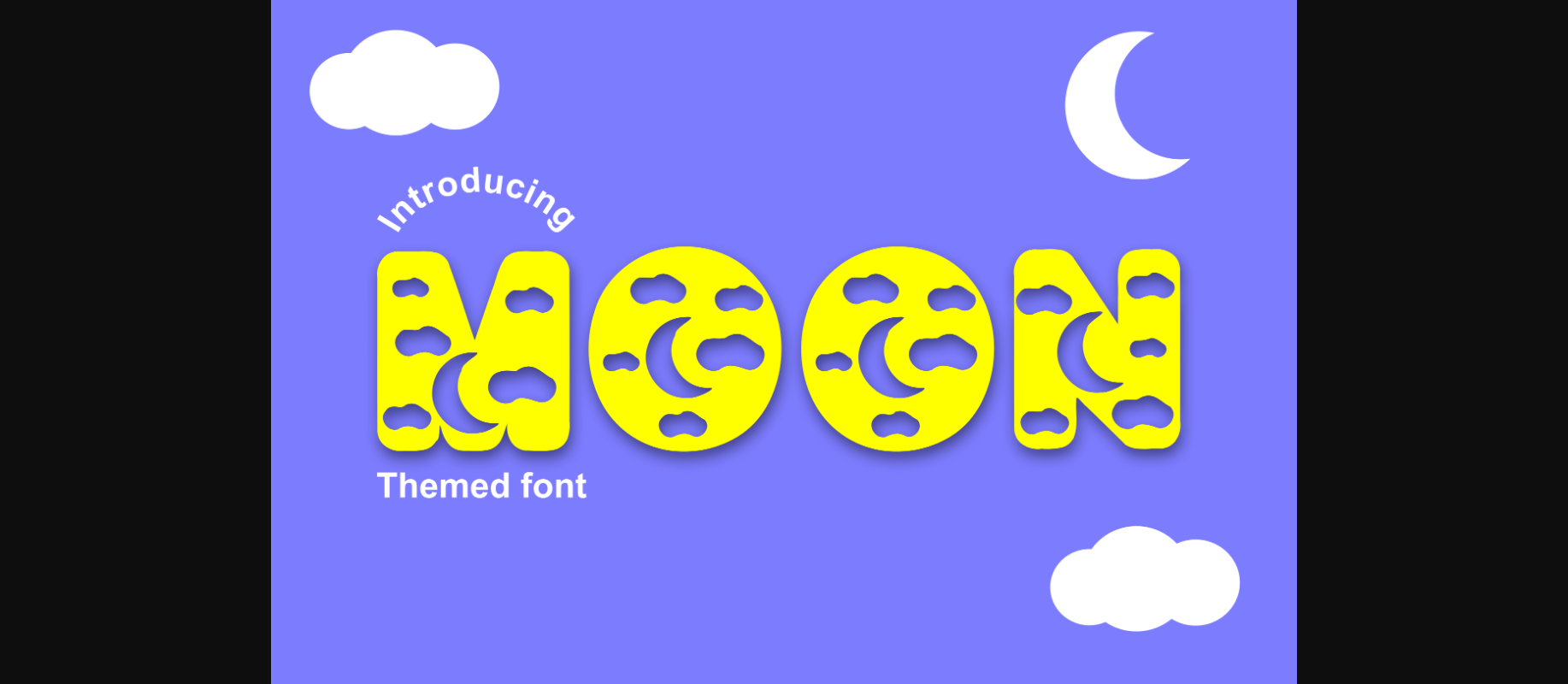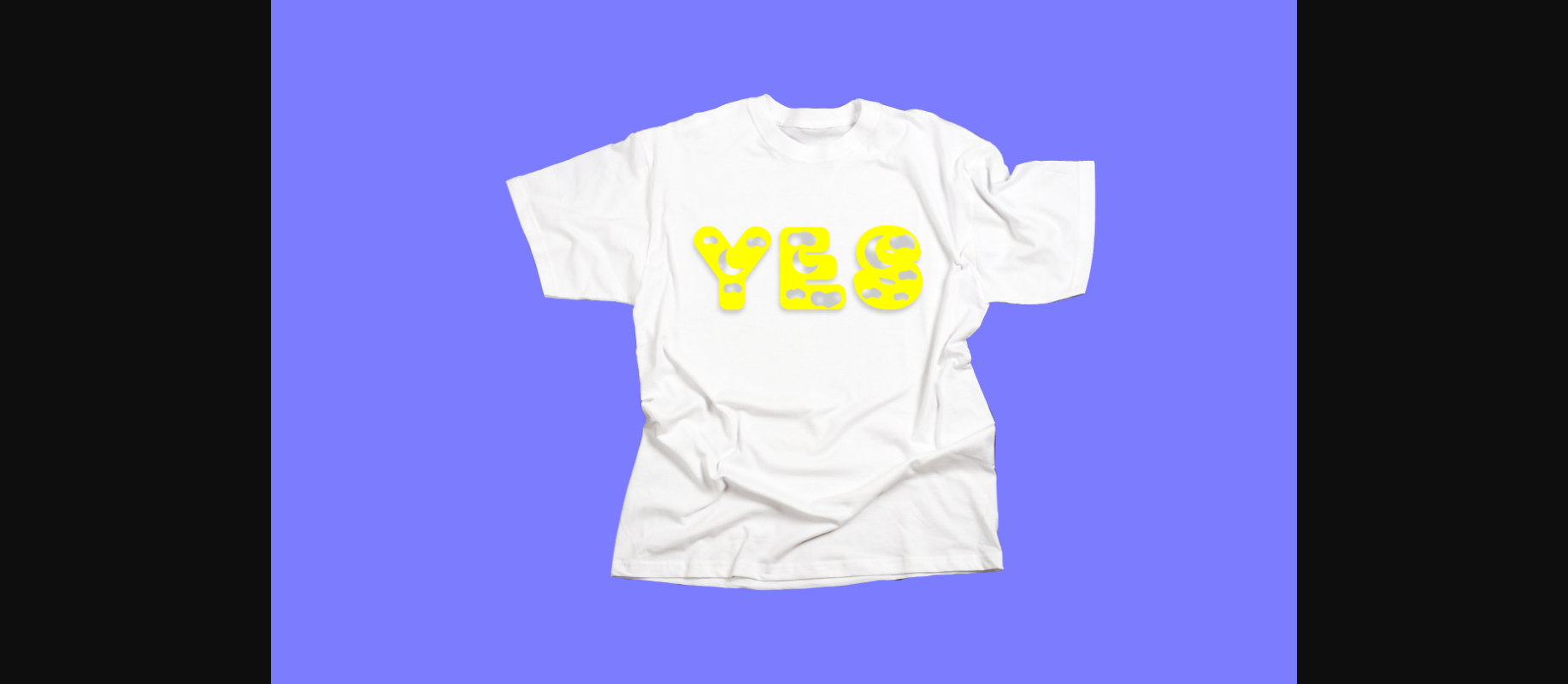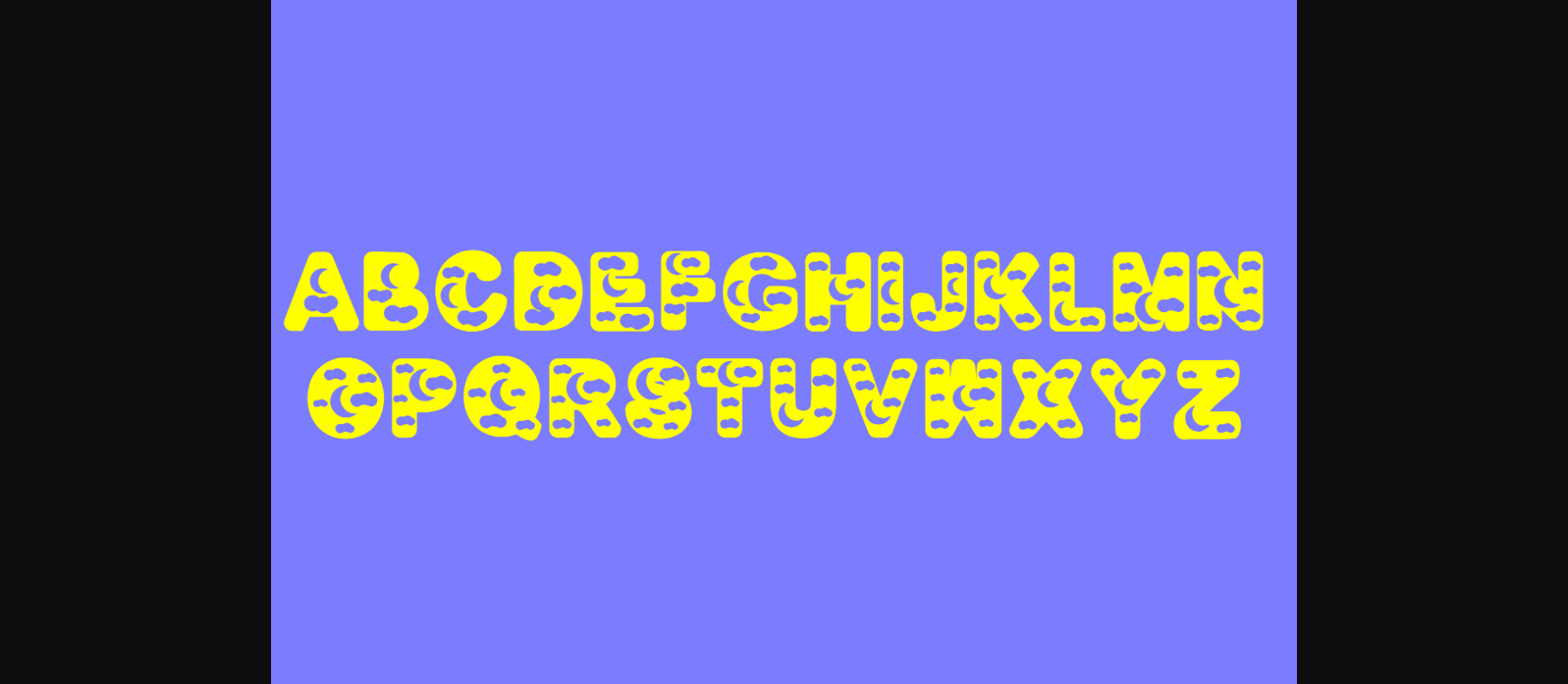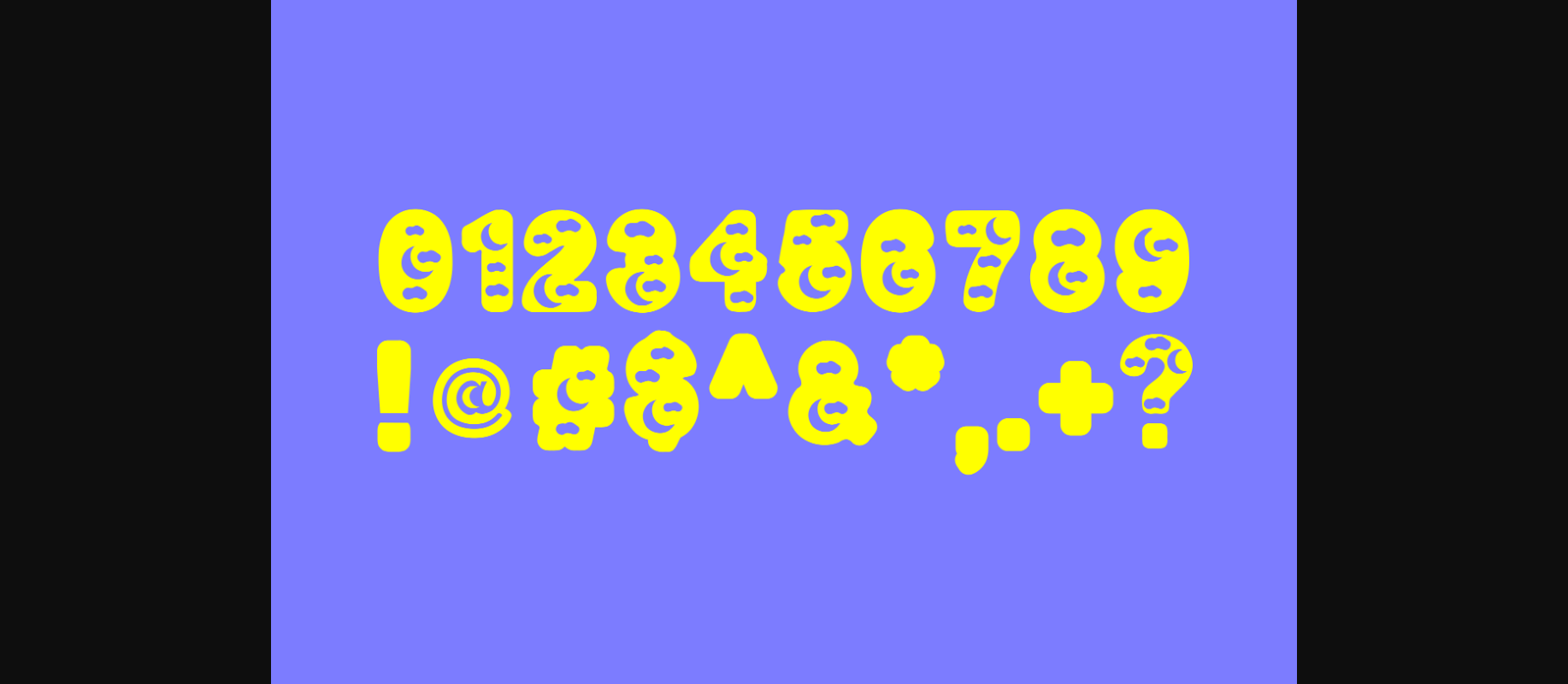
About Moon Font
Moon is a fun and chunky lettered decorative font. It is suitable for any branding, product packaging, invitation, quote, t-shirt, label, poster, logo that you wish to develop.